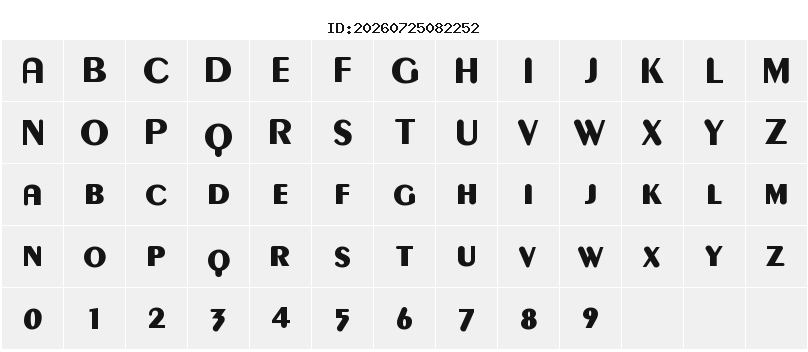
• Font Name: Gilgongo Kaps
• Designer: Apostrophe & Graham Meade
Gilgongo Kaps.ttf is a modern, elegant sans-serif font designed for ultimate readability and visual harmony. Perfect for branding, headlines, web design, and print materials.